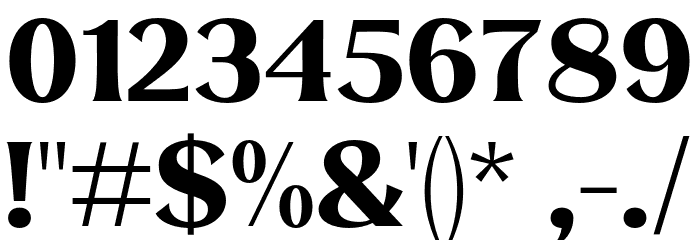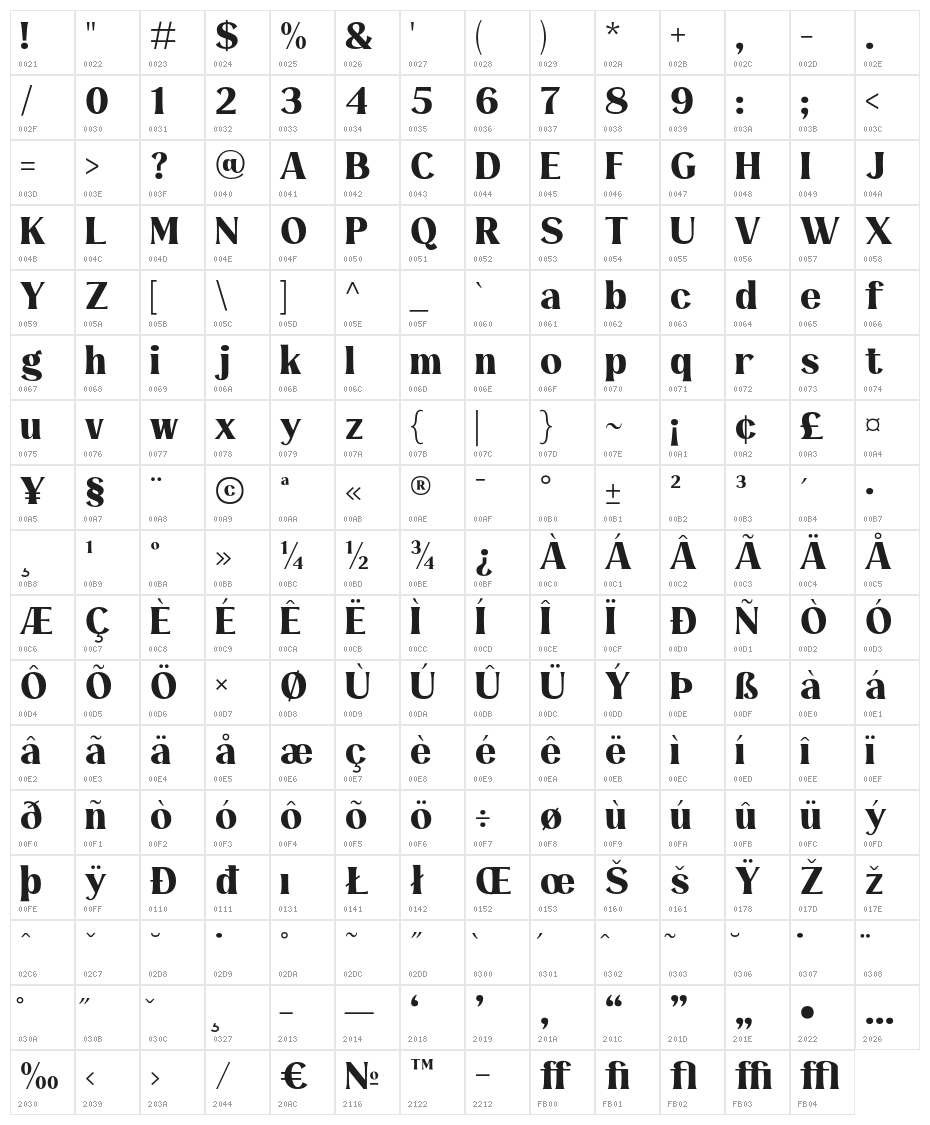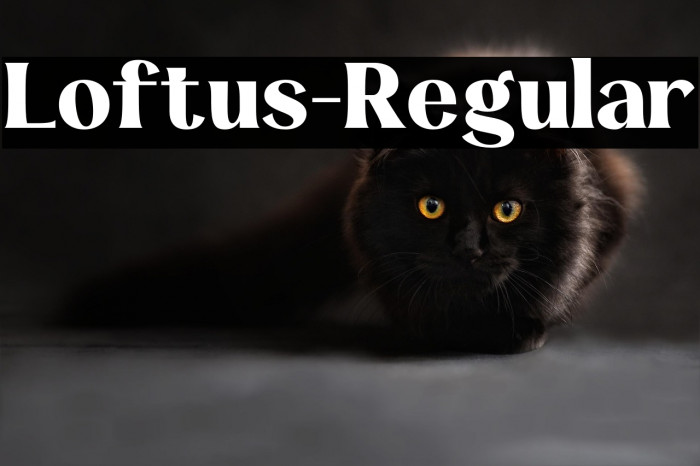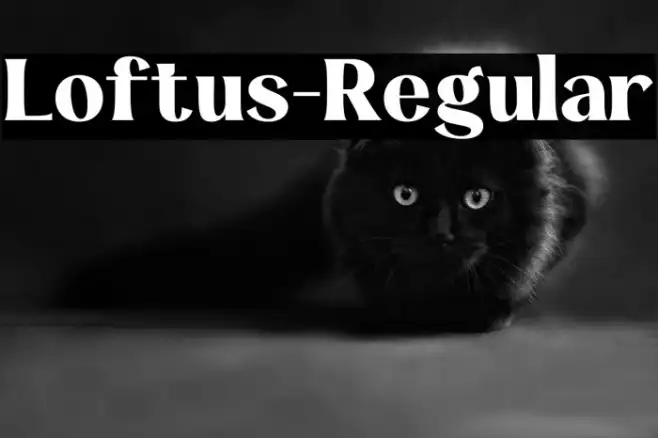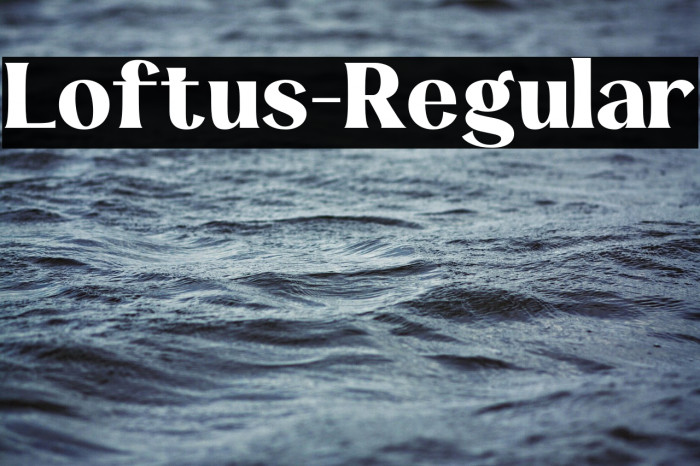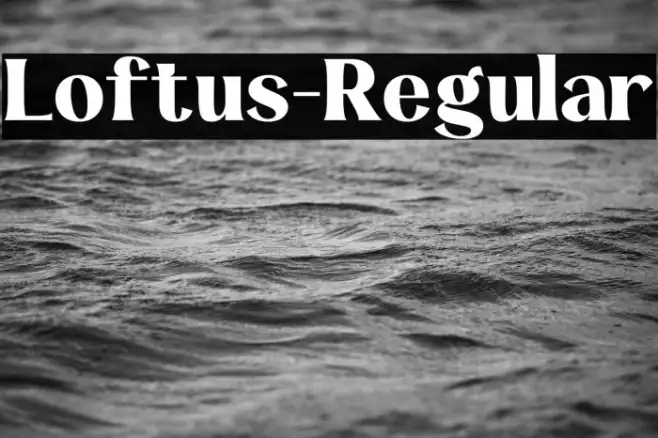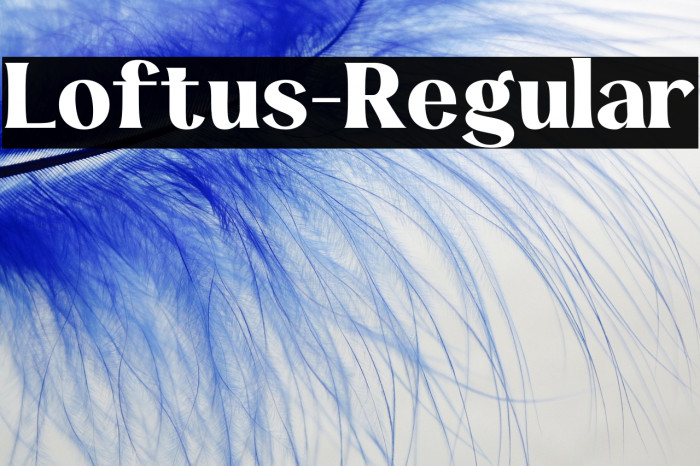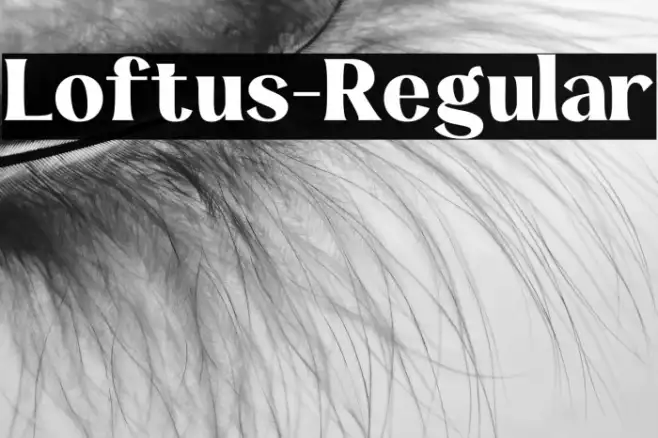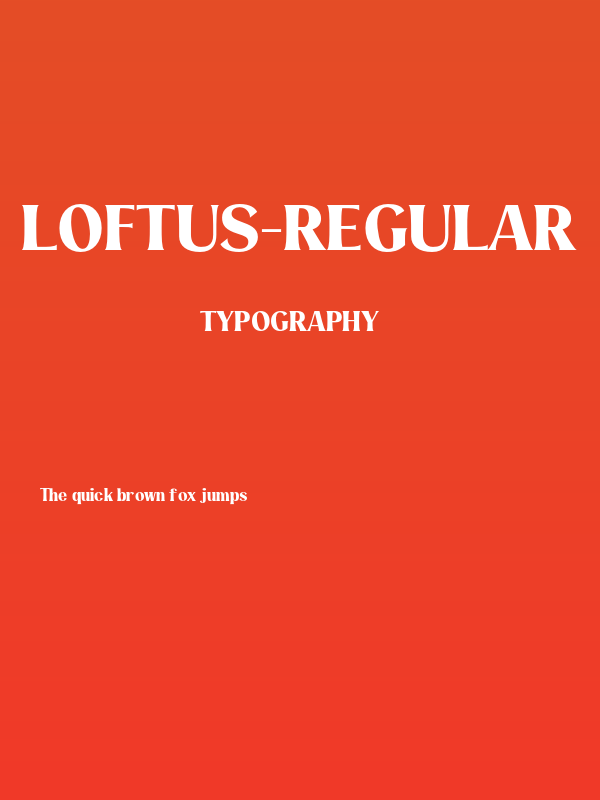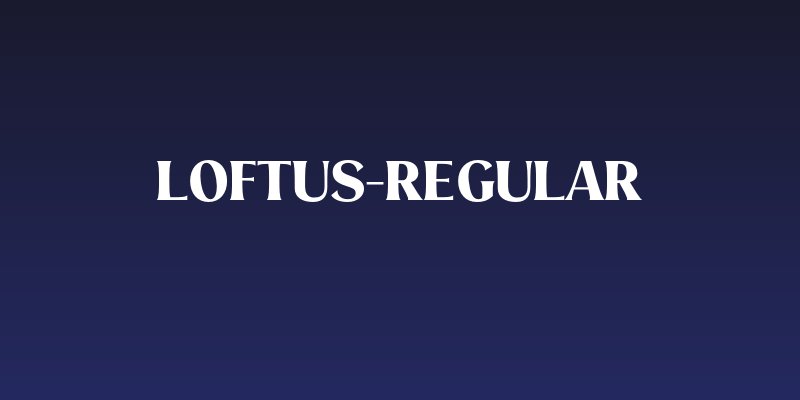
Loftus-Regular Font
Loftus-Regular Description
This font exhibits a bold and dynamic presence with its thick strokes and slightly condensed letterforms. The serifs are prominent and slightly curved, adding a touch of elegance and strength. The uppercase letters are robust and commanding, while the lowercase letters maintain a consistent weight, providing a harmonious balance. The numerals are clear and easily distinguishable, making them suitable for various applications. Special characters are well-integrated, maintaining the overall style and weight of the font. This typeface is versatile, offering a modern yet classic appeal that can enhance both digital and print media.
| Overall Style | Modern Classic |
| Proposed Projects | Ideal for branding, headlines, posters, and editorial design where a strong and elegant presence is desired. |